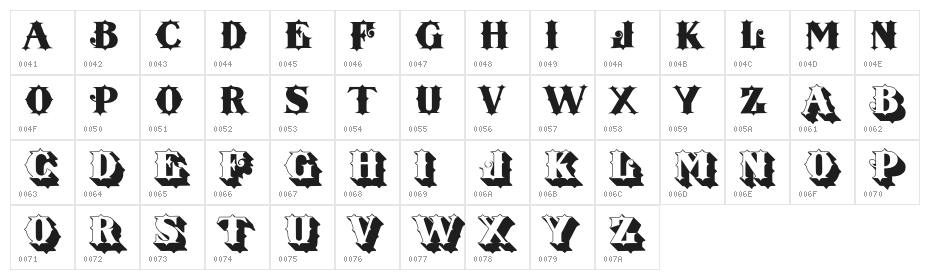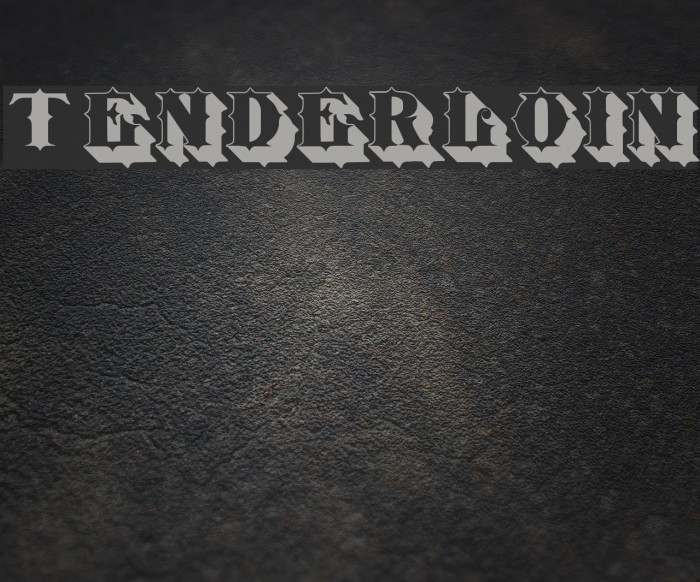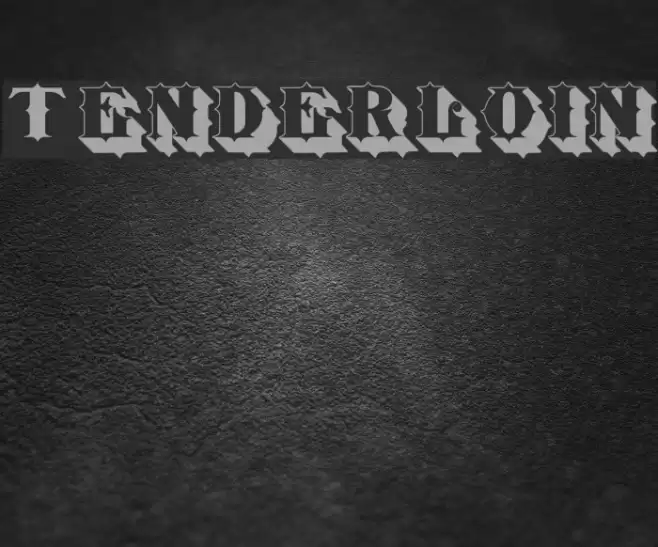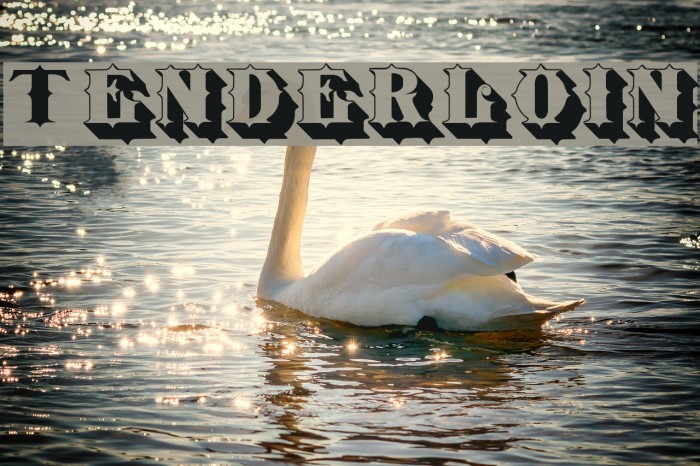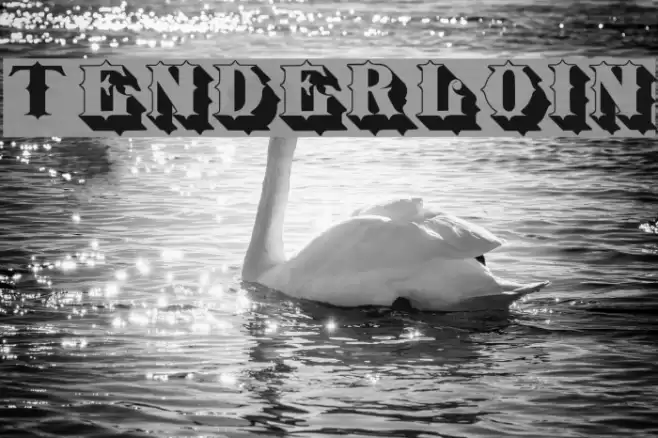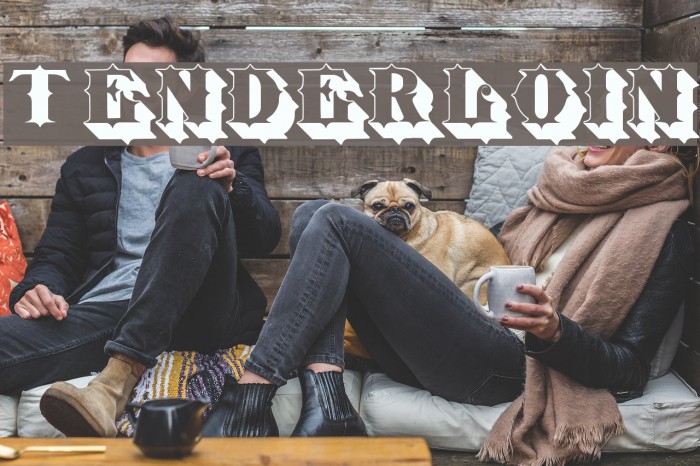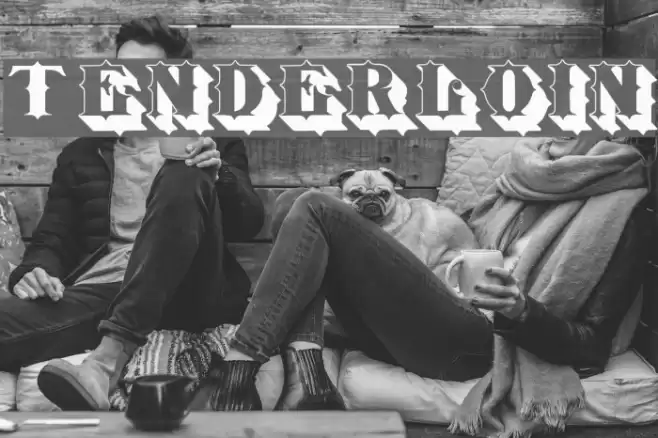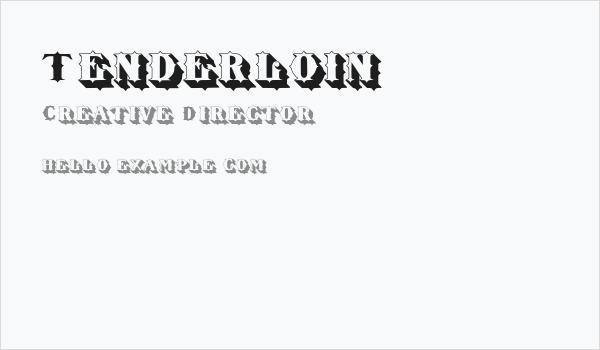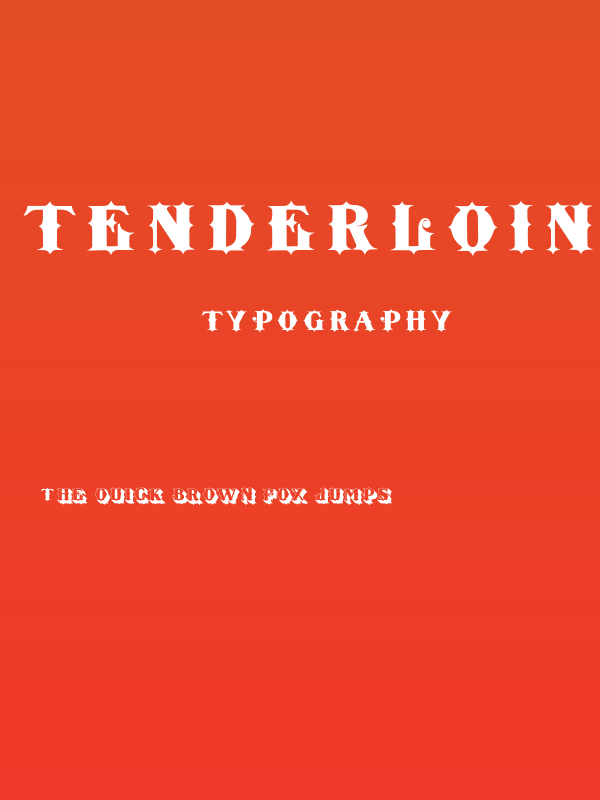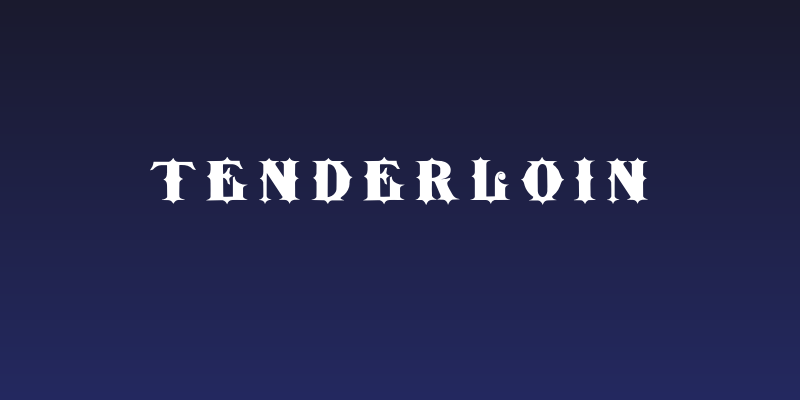
Tenderloin Font
Tenderloin Description
This font features a bold and dramatic style with sharp, angular edges and a three-dimensional shadow effect. The uppercase letters are designed with a strong presence, making them ideal for attention-grabbing headlines. The intricate detailing and shadowing give it a unique, vintage feel reminiscent of old Western or circus posters. The font's decorative nature makes it stand out, while the consistent stroke width maintains readability. Its boldness is balanced by the intricate cutouts and shadows, creating a striking visual impact.
| Proposed Projects | Ideal for vintage-themed posters, logos, or branding that requires a bold, eye-catching typeface. |